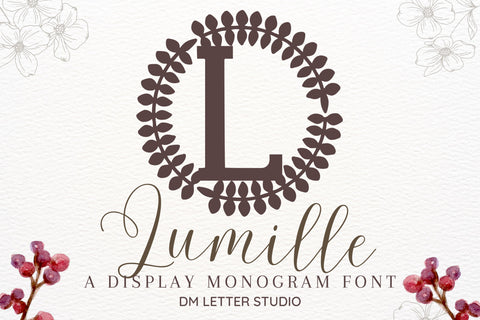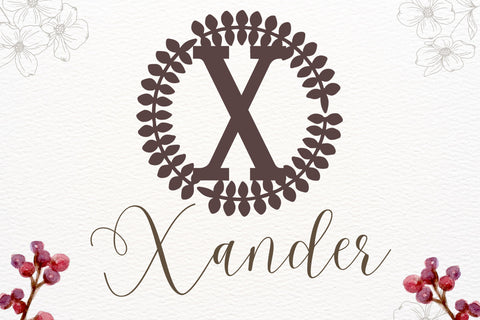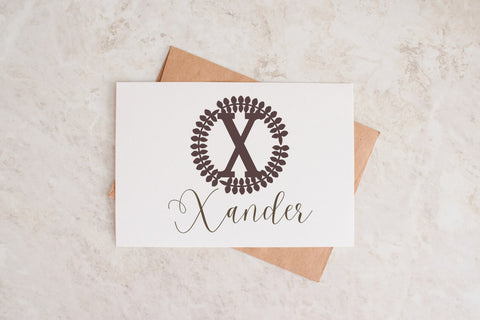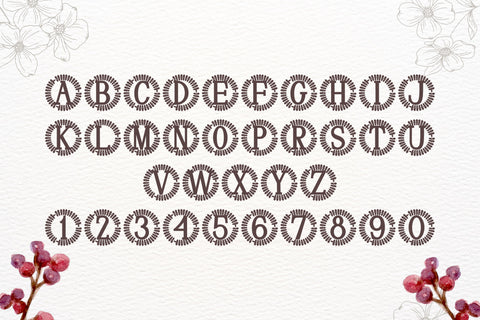
Lumille Monogram Font
Meet Lumille, the Monogram Font
Lumille Monogram Font turns simple initials into radiant, boutique-ready emblems. Lines are smooth and balanced. Open counters keep tiny tags readable and thumbnails crisp. Use it for wedding suites, boutique logos, keepsake gifts, foil seals, and premium packaging. In addition, Lumille pairs beautifully with refined serifs and quiet humanist sans fonts, so layouts feel elegant without extra effort.
Where this monogram font shines
Set single, double, or triple initials for logos, seals, menus, and place cards. Then frame them with laurel rings, oval borders, rope circles, or fine rules to echo the calm geometry. Since proportions favor symmetry and clear spacing, centered compositions come together in minutes. As a result, your listings stay consistent across invitations, signage, boxes, and tags. Lumille also scales smoothly from jewelry cards to entry displays.
Design tips for Lumille Monogram
Keep initials large and let white space breathe. Pair the hero mark with a soft serif for body text or a clean sans for dates and labels. Add micro shadows, a thin inner stroke, or a delicate frame for depth. Because the structure is airy and refined, textured papers and metallic accents raise perceived value. Keep wording short so the monogram remains the hero on small favors and wax seals.
Select stylistic alternates for key letters
Curves tuned for foil, letterpress, engraving, laser cutting, and clean vinyl paths
Why creators choose Lumille
You want elegance that reads at a glance and sells across many product types. Lumille Monogram Font delivers steady clarity, quick layout, and a cohesive brand voice from invites to packaging and gifts.